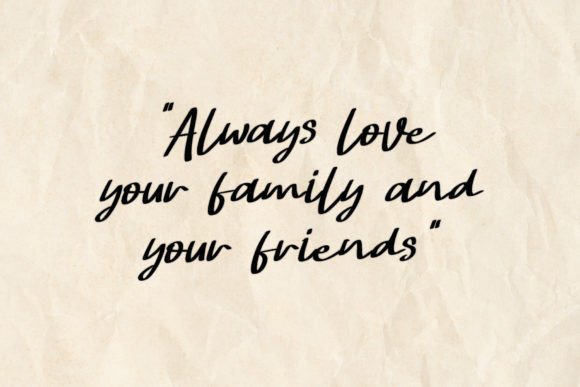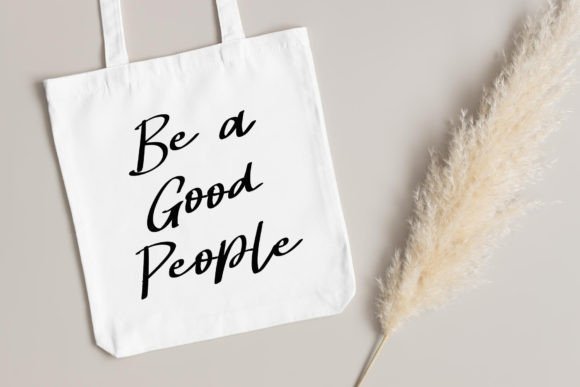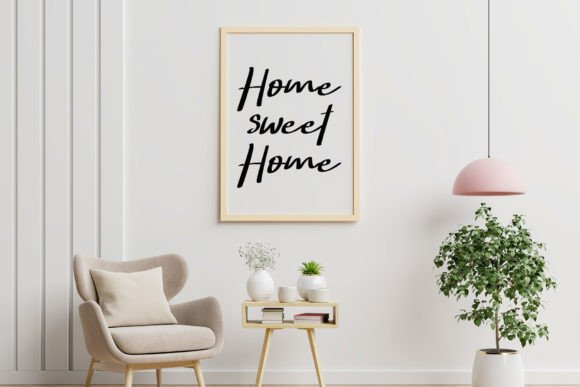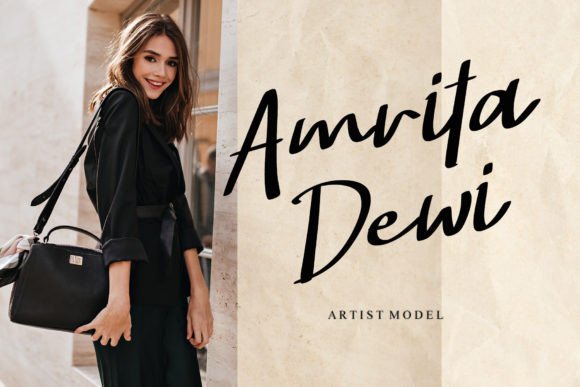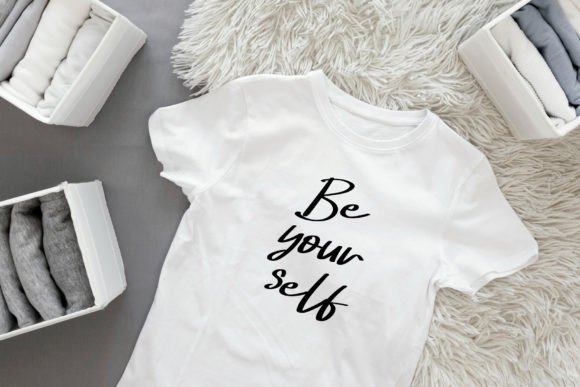
Introduction to Hongkong Script Font
Hongkong Script is a quirky and attractive handwritten font.
This font is perfect for logos, greeting cards, package design, brand identity, craft design, any DIY project, book titles, wedding invitations, and many more .
Key Features of Hongkong Script Font